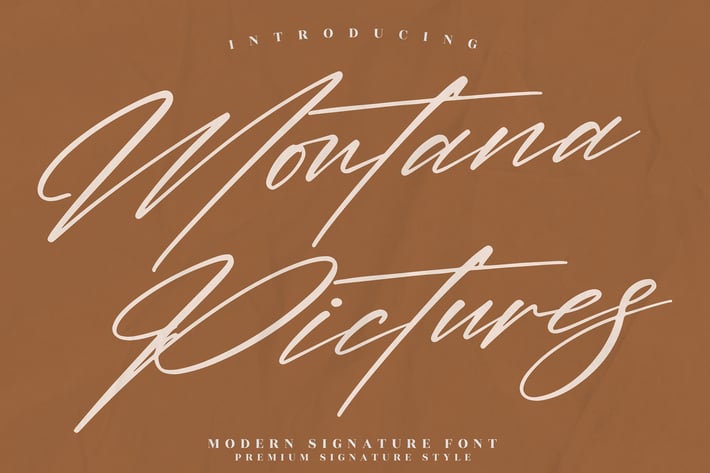
Montana Pictures Modern Signature Font
Montana Pictures Modern Signature Font is a premium script font designed to deliver an elegant and stylish look. With its smooth, sophisticated strokes and graceful flow, this font adds a luxurious touch to your designs — ideal for creative projects that demand a personal yet professional feel.
Elegant, modern signature script style
Smooth, fluid lines for a high-end, professional feel
Perfect for both digital and printed creative work
Luxury brand logos and signatures
Photography logos & watermarks
Elegant wedding invitations and event stationery
Business cards with a premium signature style
Branding and identity for high-end products
Social media posts and content with sophistication
Photography and creative portfolios
Elegant, modern, and luxurious — Montana Pictures Modern Signature Font elevates every design with its graceful flow.*